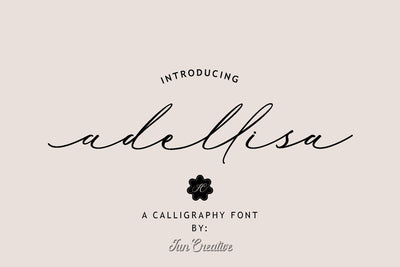
Adellisa Font
Adellisa is a modern calligraphy font. This font is neatly crafted and highly detailed. Whatever the topic, this font will be a wonderful asset to your font library, as it has the potential to enhance any creation.